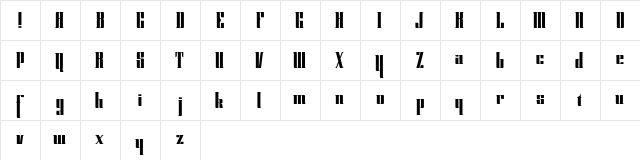
CyberGothic DEMO Regular
| Foundry | tudy1311 |
| Designer | tudy1311 (Tudor Banciu) |
Design Context for CyberGothic DEMO Typeface
CyberGothic DEMO has a distinctly futuristic character, with geometric precision and clean angles that feel at home in technology, gaming, and sci-fi contexts.
Pro Tip: Try CyberGothic DEMO with generous letter-spacing in UI labels and navigation — the geometric forms benefit from room to breathe.